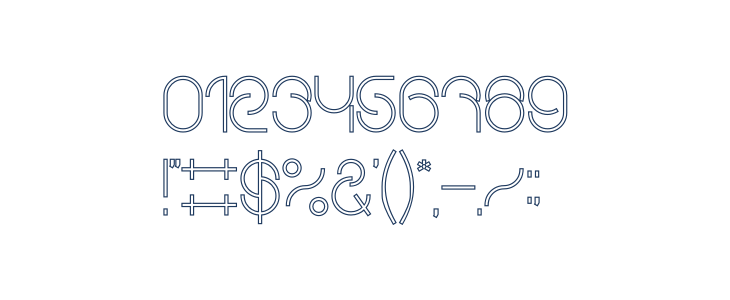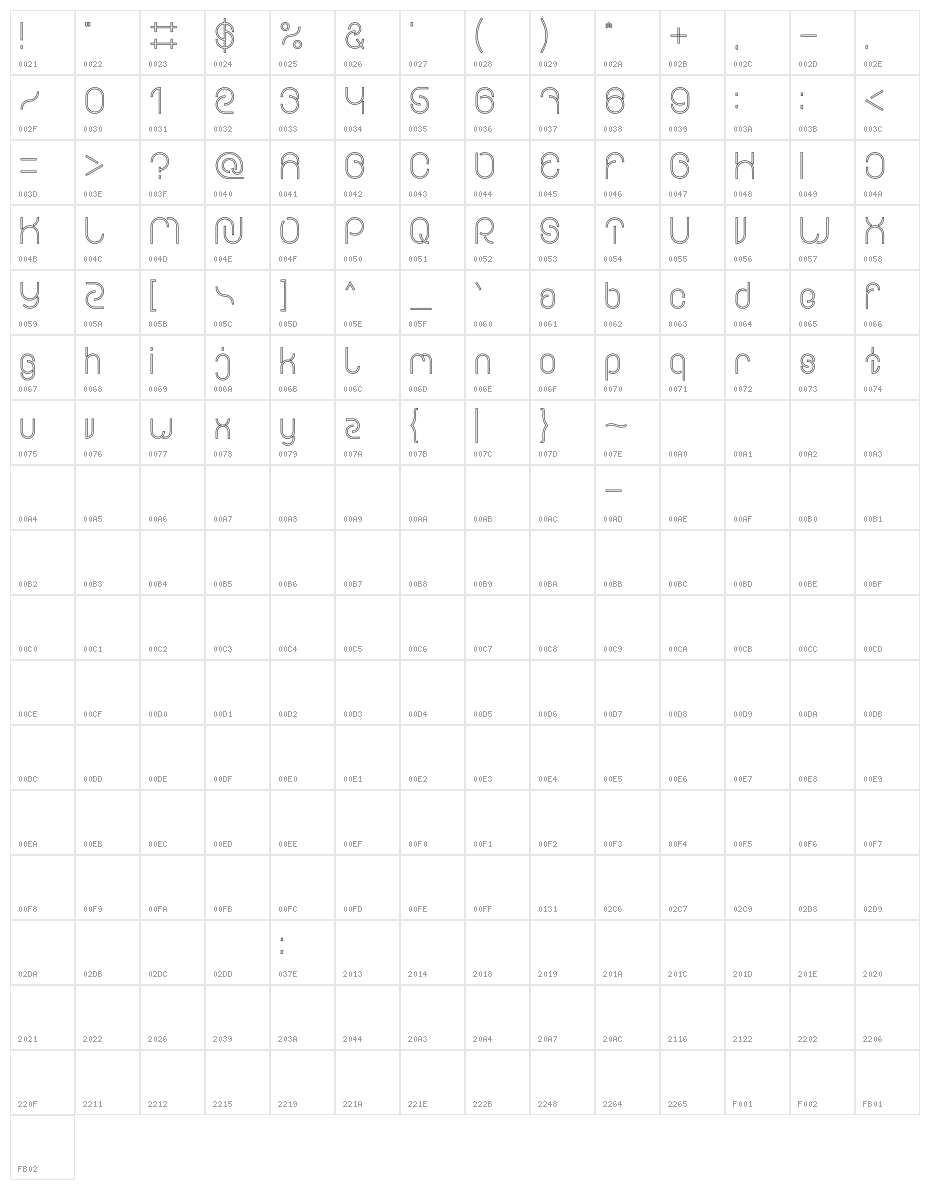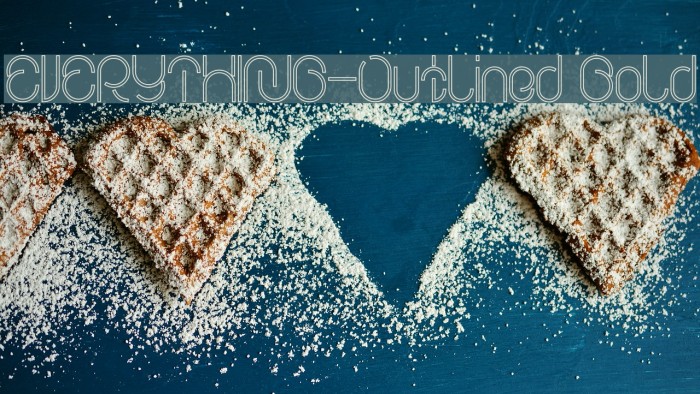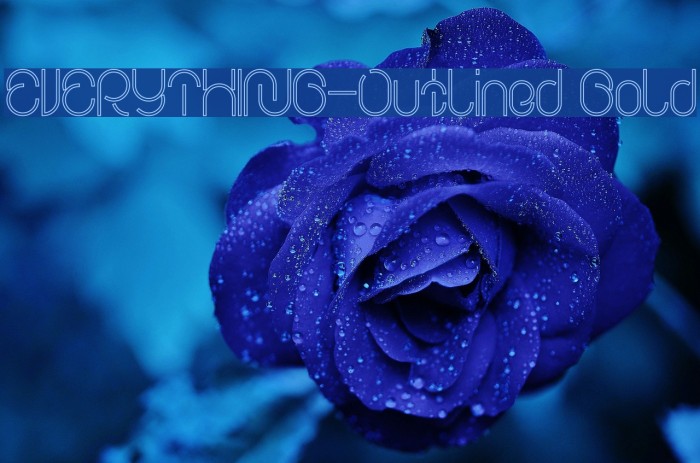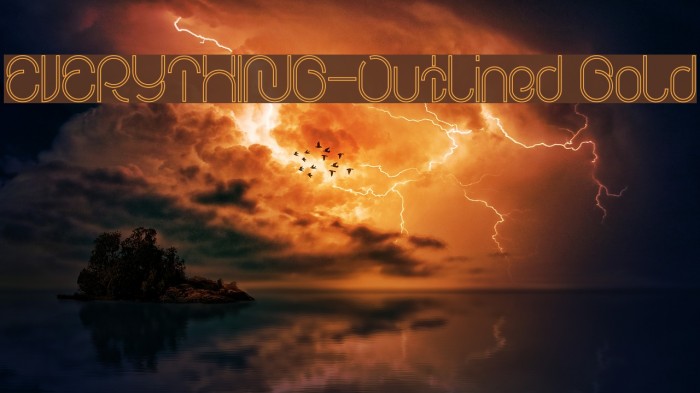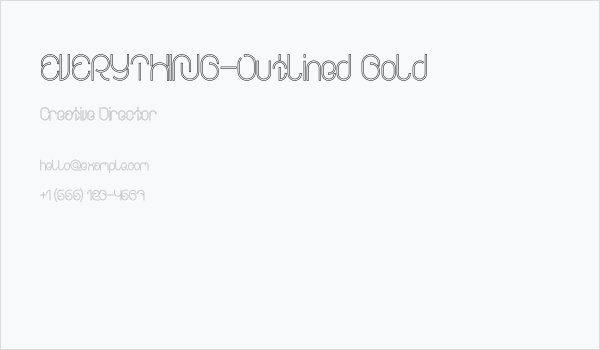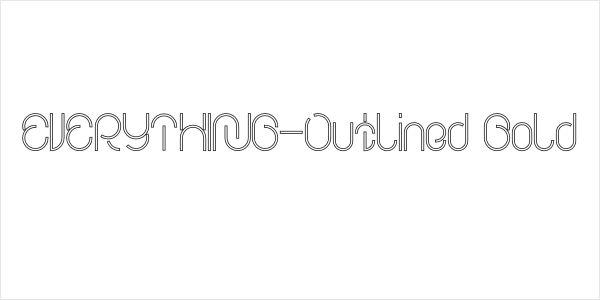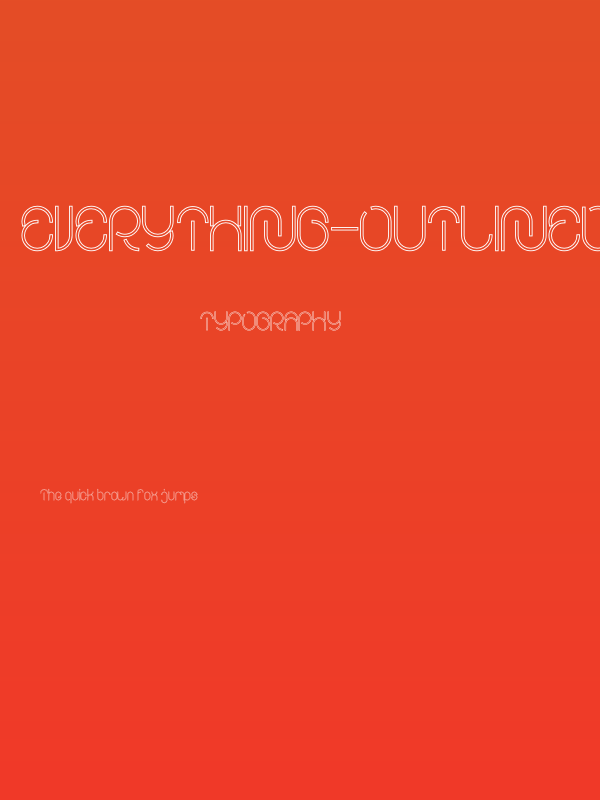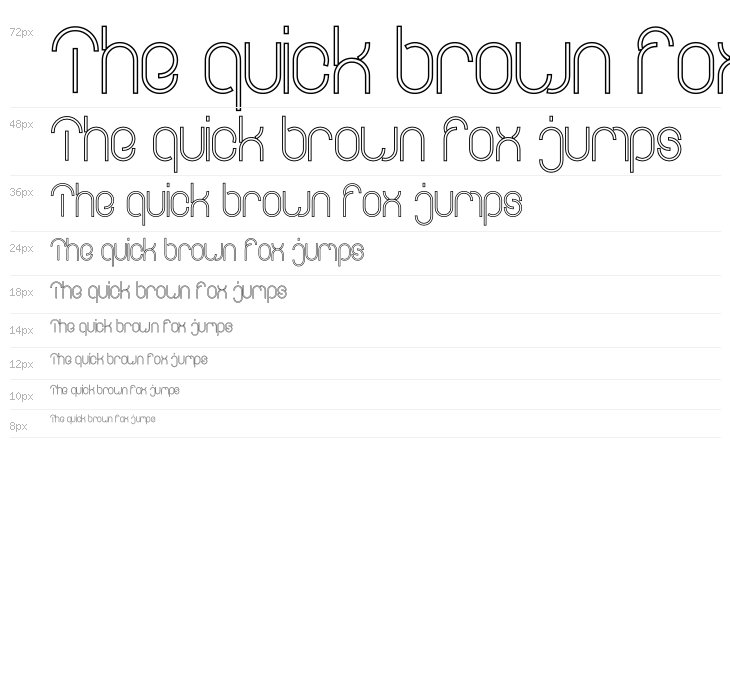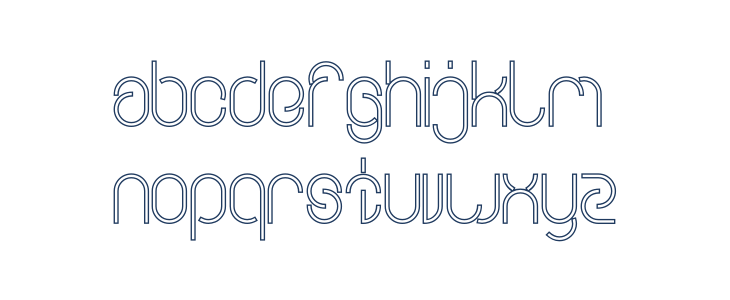
EVERYTHING-Outlined Bold Font
EVERYTHING-Outlined Bold Description
This font features a unique outlined style that gives it a modern and futuristic appearance. The characters are composed of thin lines that form the outer edges, creating a hollow effect. The uppercase and lowercase letters maintain a consistent geometric form, with rounded edges and smooth curves. Numbers and special characters follow the same design principles, ensuring uniformity across the typeface. The font's design is clean and minimalistic, making it suitable for projects that require a contemporary and stylish look.
| Proposed Projects | Ideal for branding, posters, digital artwork, and futuristic-themed designs. |